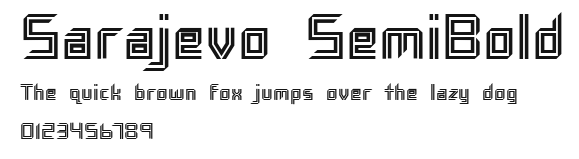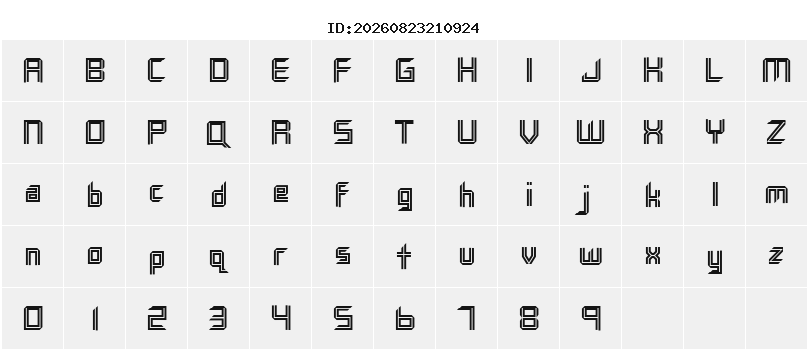
Sarajevo SemiBold Preview
• Font Name: Sarajevo SemiBold
• Full Font Name: Sarajevo SemiBold
• PostScript Name: SarajevoSemiBold
About Sarajevo SemiBold.ttf
Sarajevo SemiBold.ttf is a modern, elegant sans-serif font designed for ultimate readability and visual harmony. Perfect for branding, headlines, web design, and print materials.